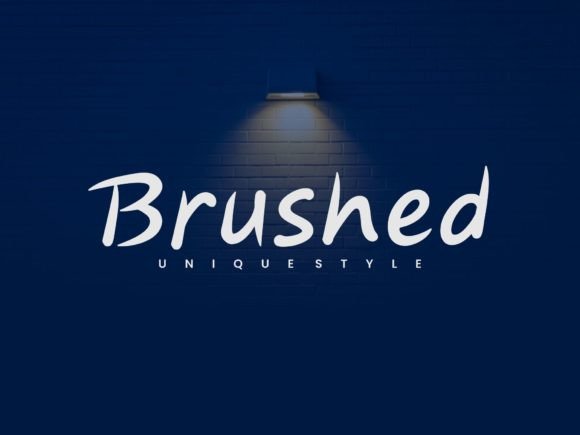
Welcome to the world of Brushed Font — a treasure trove of elegant curves and stylish serifs. As a script font, Brushed dances across your designs with a finesse that captures hearts and captivates imaginations. The delicate strokes of this font add a touch of charm to your creations, whether it's a logo, magazine, social media post, or brochure.
Brushed Font is more than just a collection of letters; it's a gateway to a world of possibilities. Picture your logo adorned with the intricate details of Brushed, standing out from the crowd with a confidence that speaks volumes. Let your magazine articles dance with a touch of sophistication, each word whispering an invitation to delve deeper into your stories. Imagine your social media posts adorned with the allure of Brushed, drawing eyes like a magnet, transforming your feed into a symphony of visual delight.
With Brushed Font, you possess the power to transform the ordinary into the extraordinary. Let its timeless beauty elevate your designs, leaving an indelible mark on the hearts and minds of your audience. Each curve, each stroke tells a tale of artistry and grace, inviting your words to dance and your ideas to shine.
Crafted by the talented artnivora.std, Brushed Font is a testament to the boundless creativity of the human spirit. Its versatility is unmatched, adapting effortlessly to a multitude of design aesthetics. Unleash the full potential of Brushed Font and witness the magic unfold before your very eyes.
Step into the realm of elegance and sophistication with Brushed Font. Let its timeless beauty weave its spell on your designs, enchanting your audience with every stroke. Embrace the power of typography and let Brushed Font carry your words to new heights.